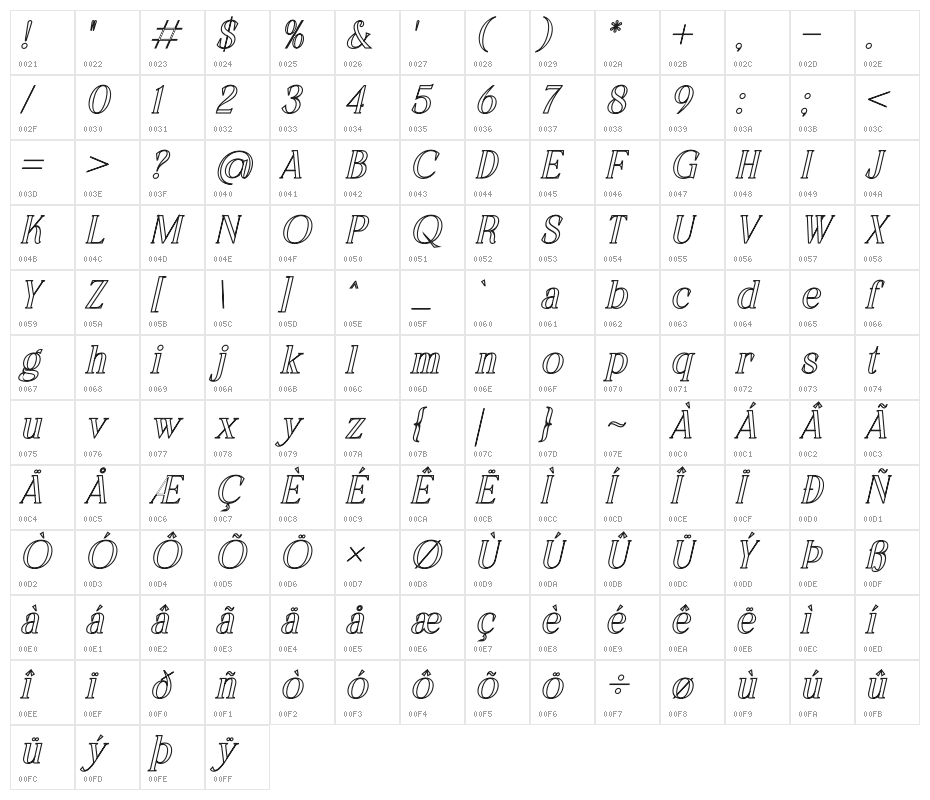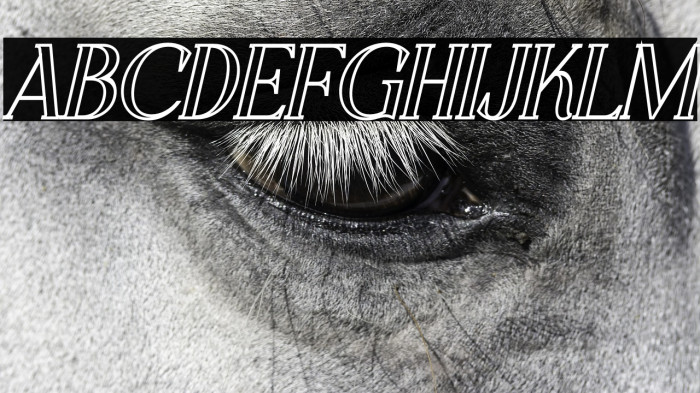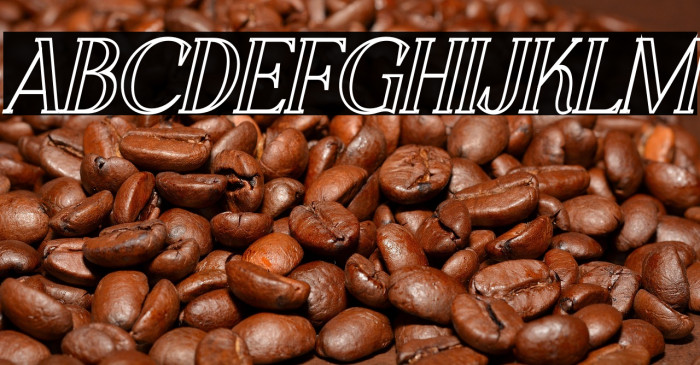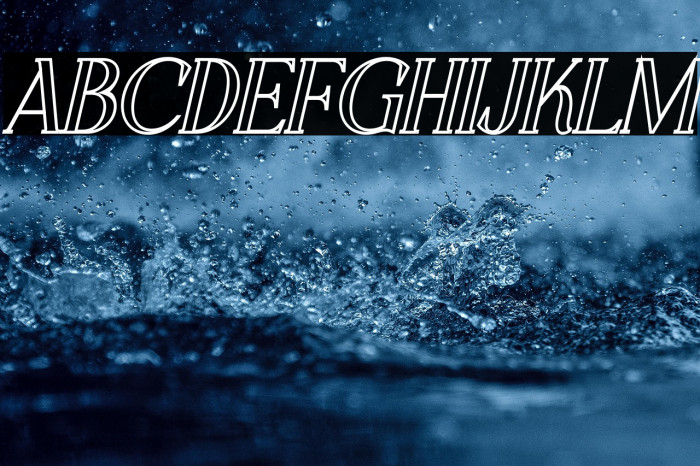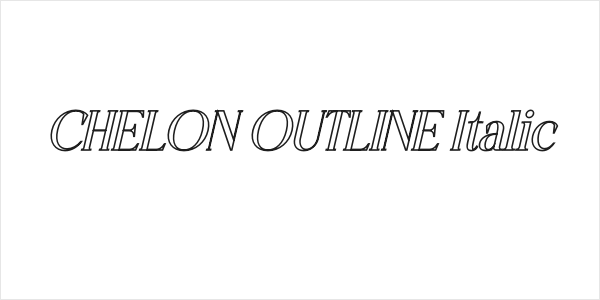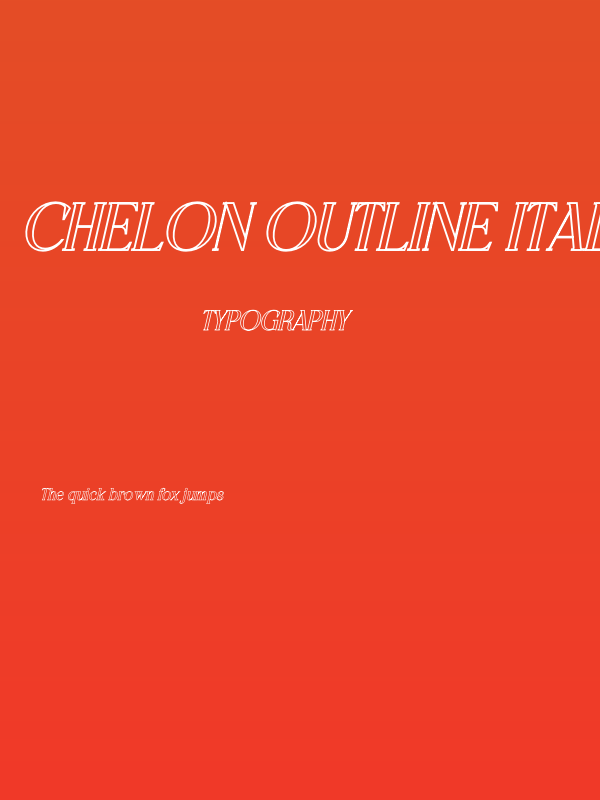
CHELON OUTLINE Italic Font
CHELON OUTLINE Italic Description
This font features an elegant and sophisticated outline style with a distinct italic slant. The characters are designed with a thin, consistent line that forms the outer edges, creating a hollow effect. The uppercase and lowercase letters maintain a classic serif structure, providing a timeless and refined appearance. The numerals and special characters follow the same outline style, ensuring uniformity across all glyphs. The italic angle adds a dynamic and flowing quality, making it suitable for creative and artistic projects. The overall design is both modern and classic, offering versatility in various applications.
| Proposed Projects | Ideal for branding, invitations, editorial design, and artistic projects where a sophisticated touch is desired. |